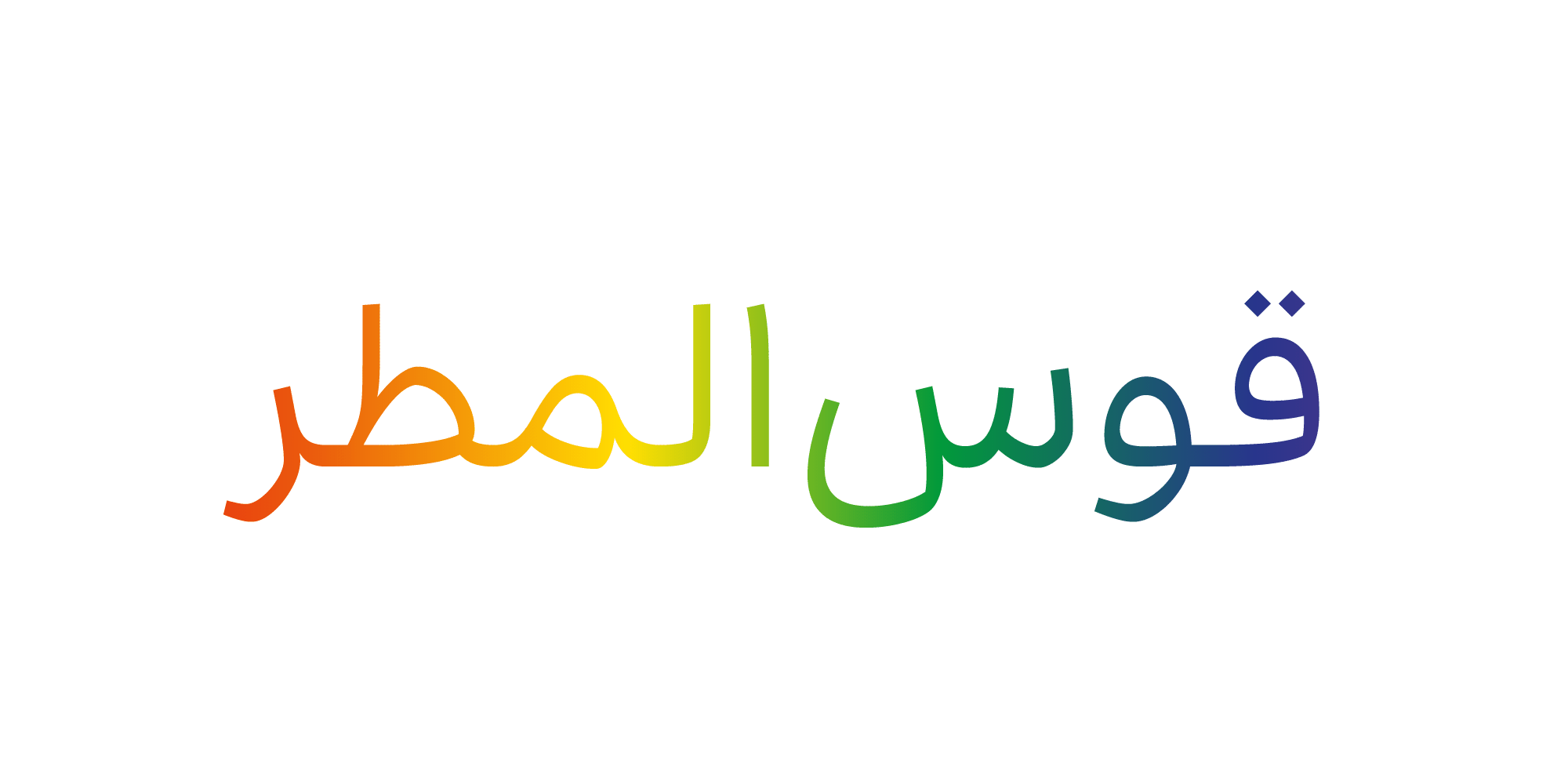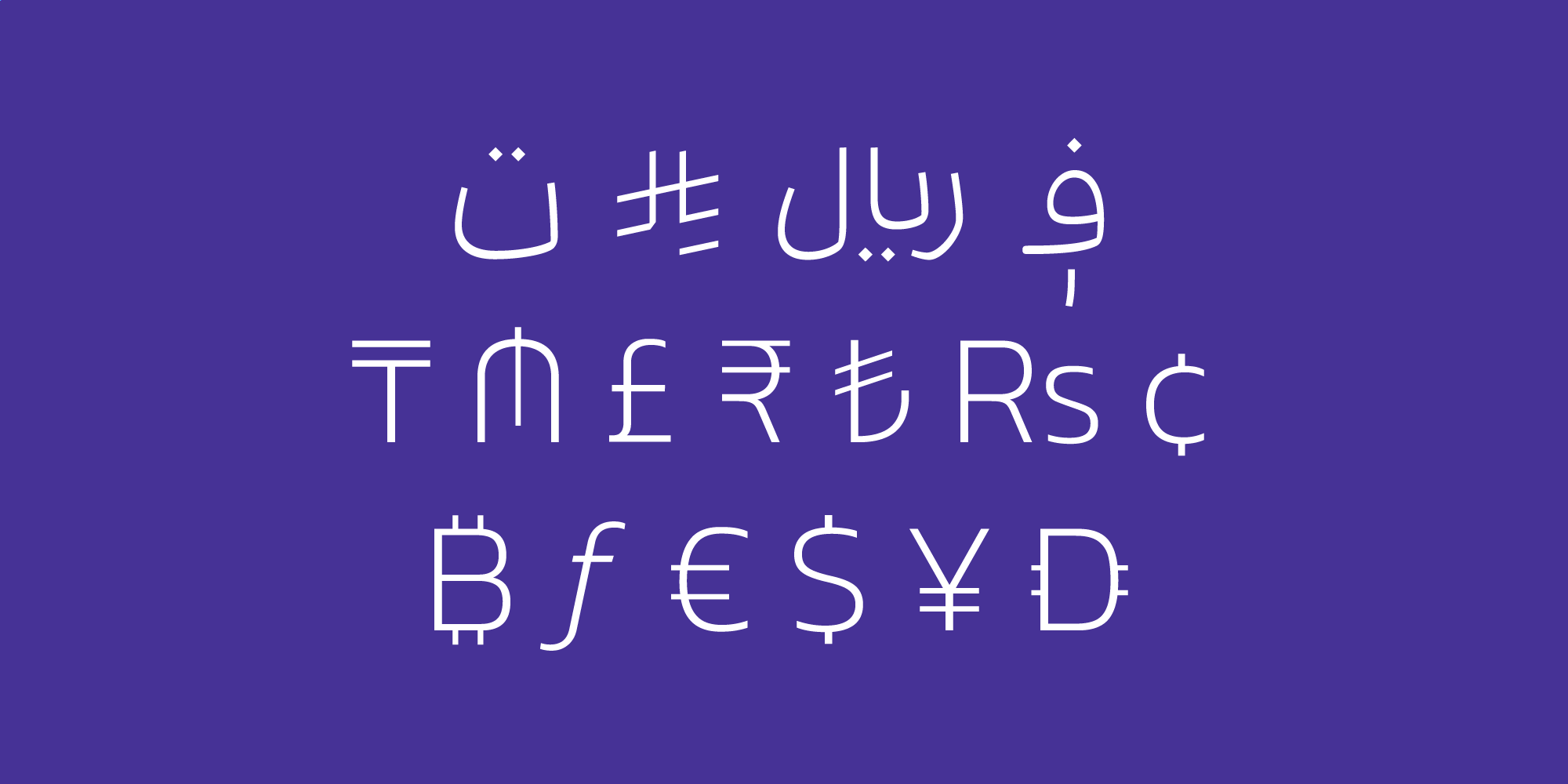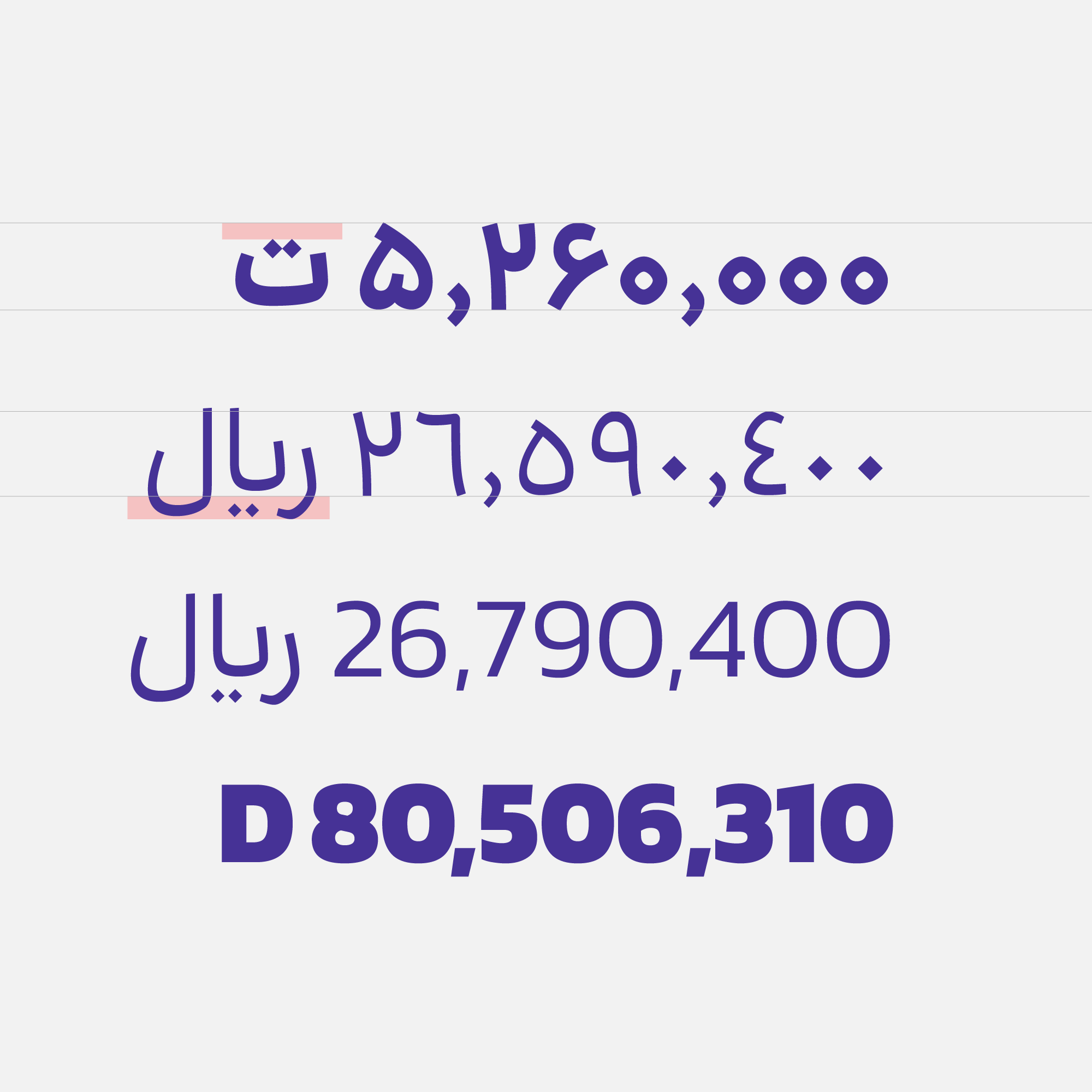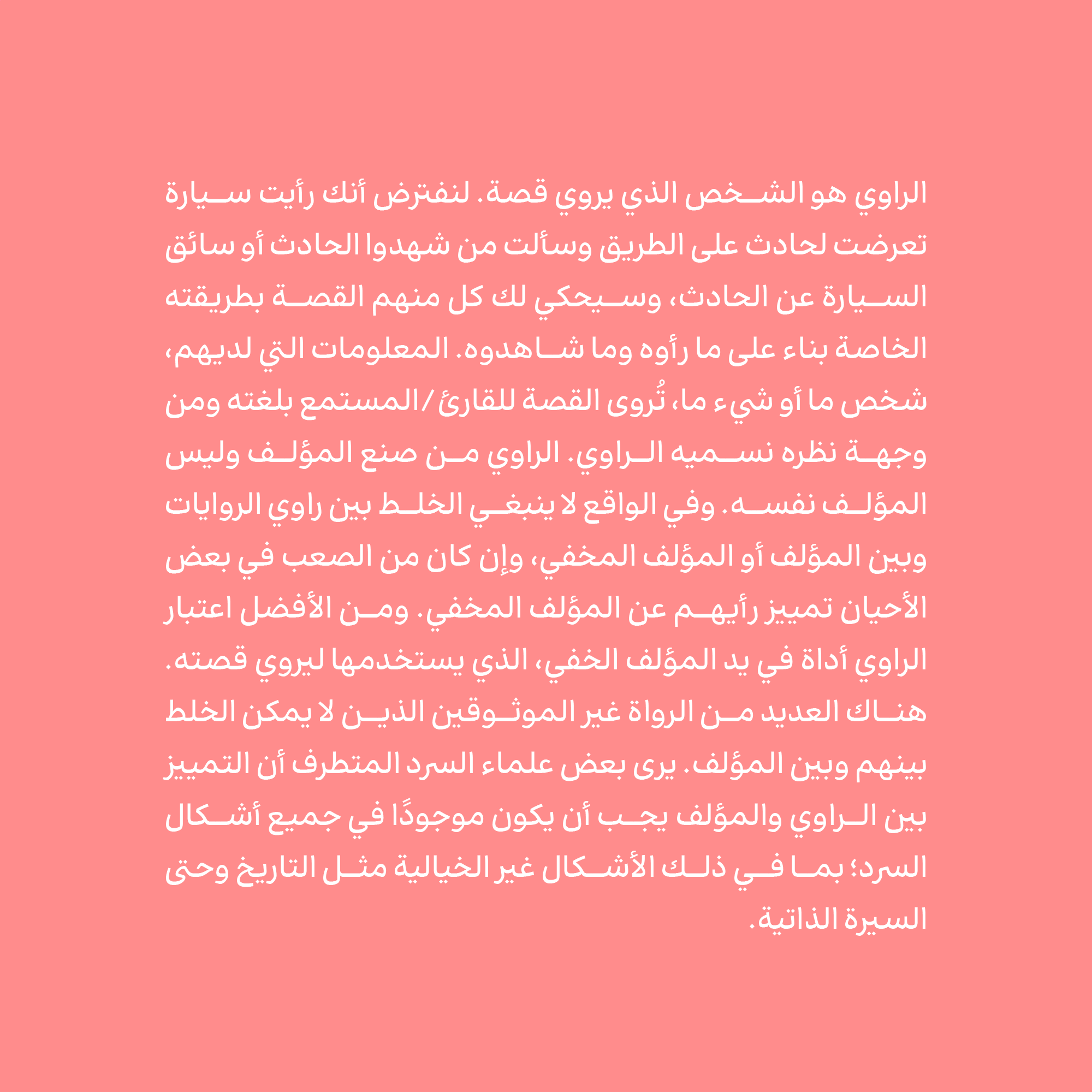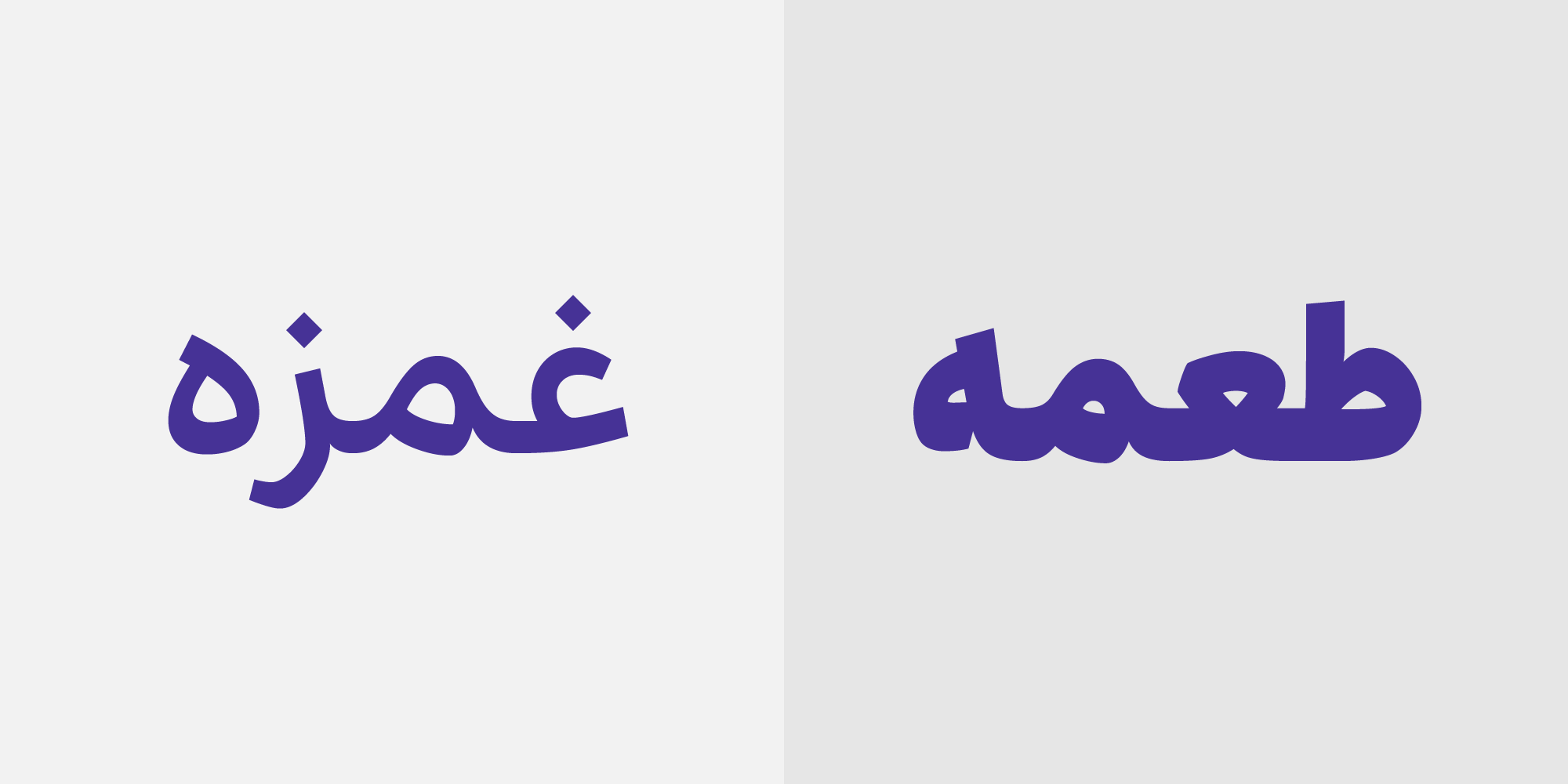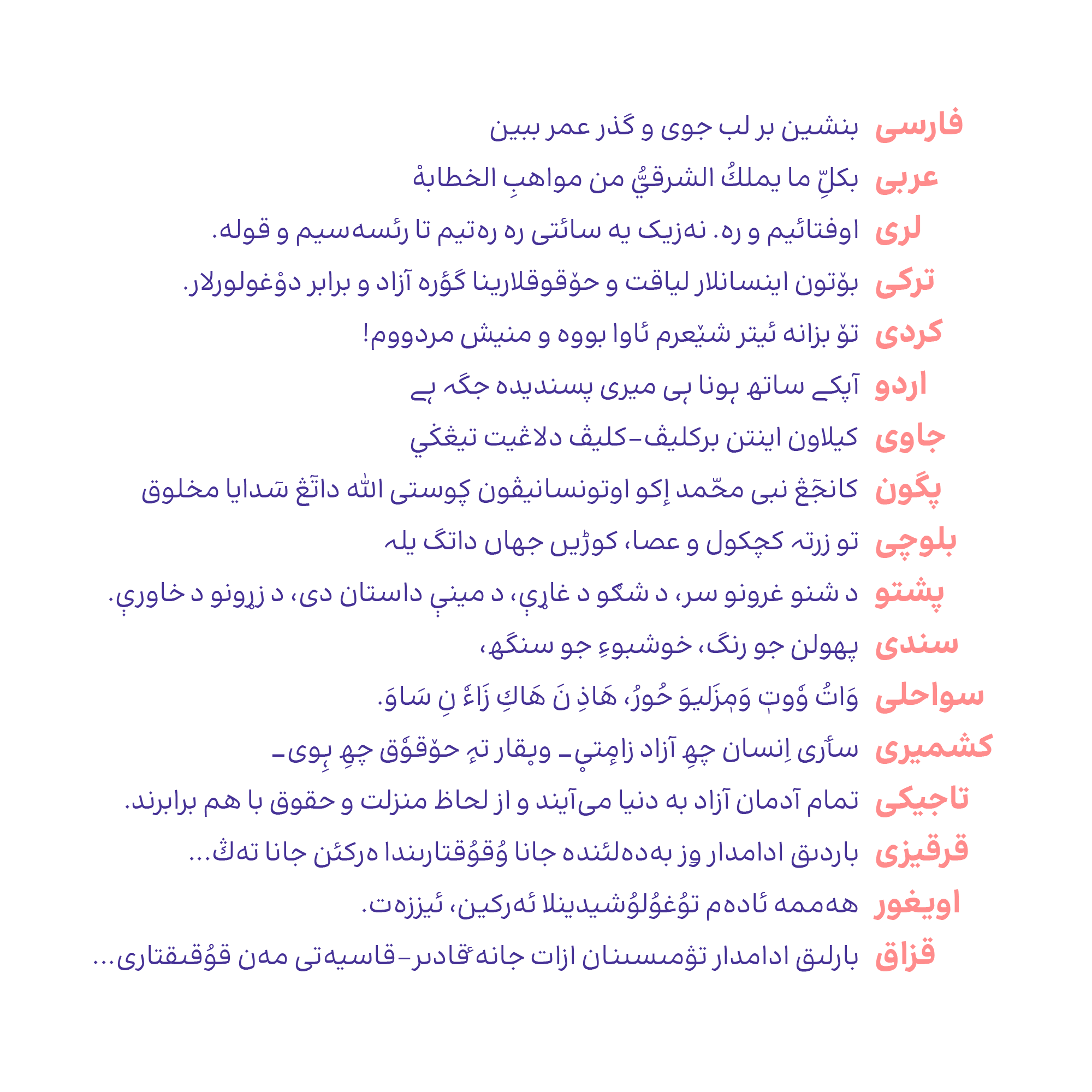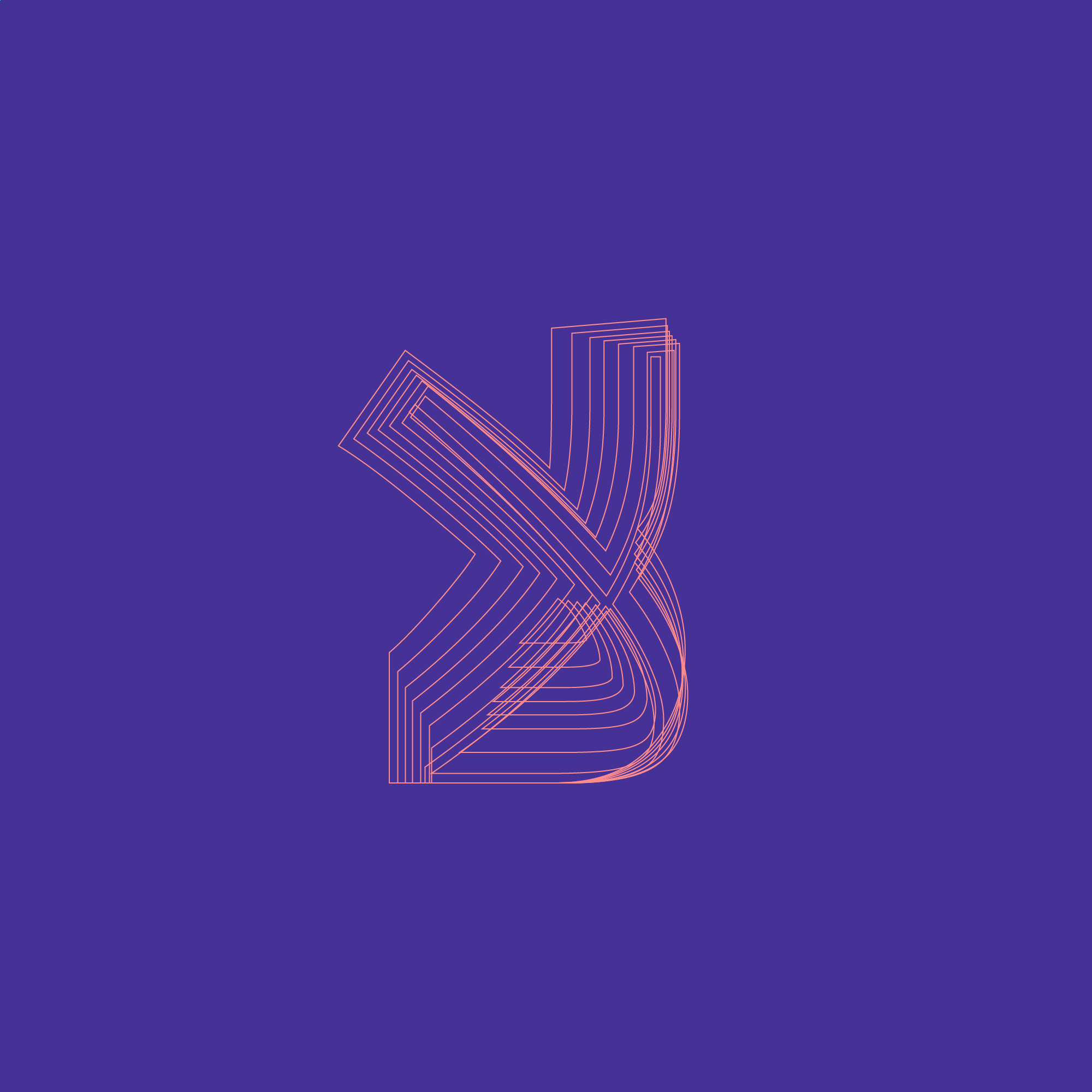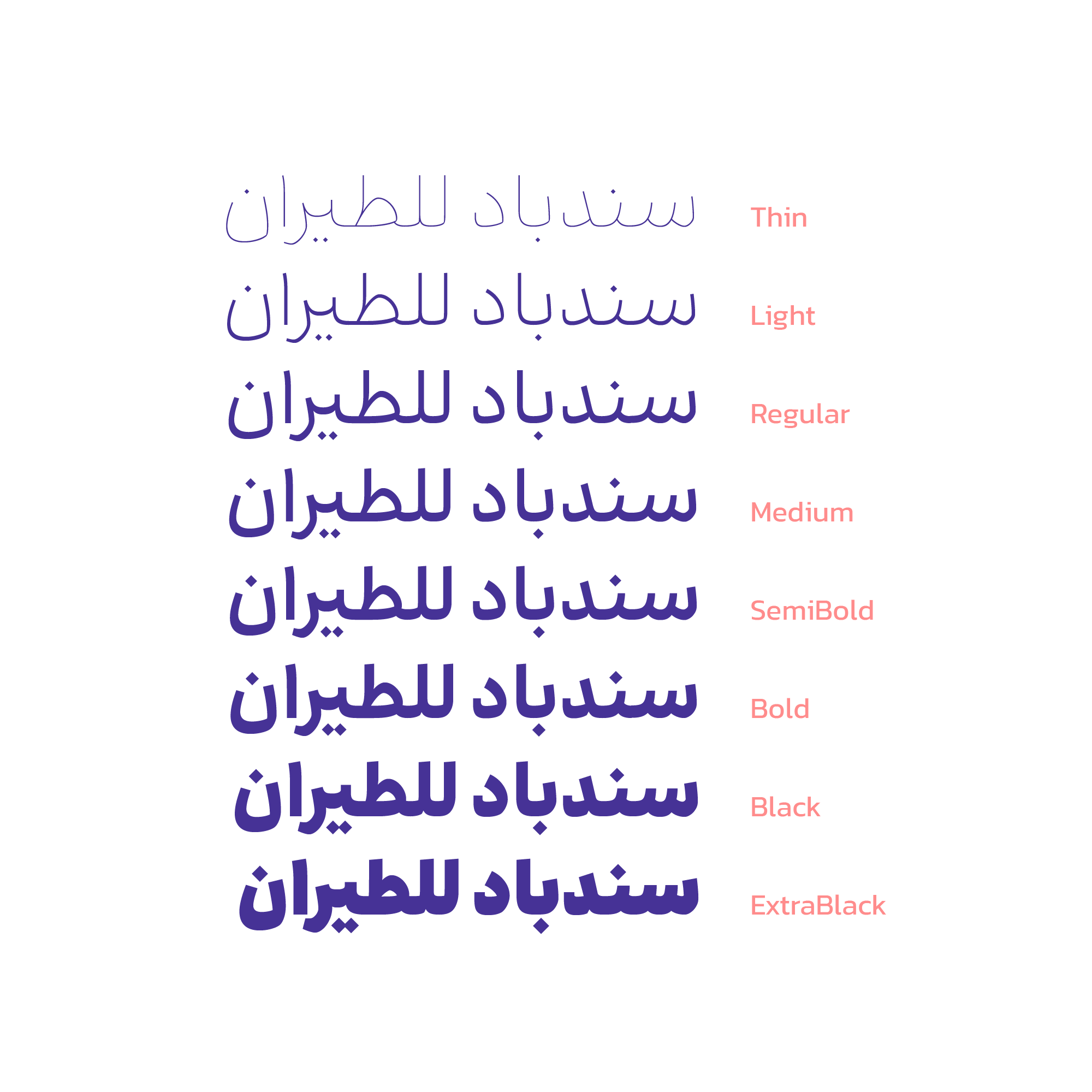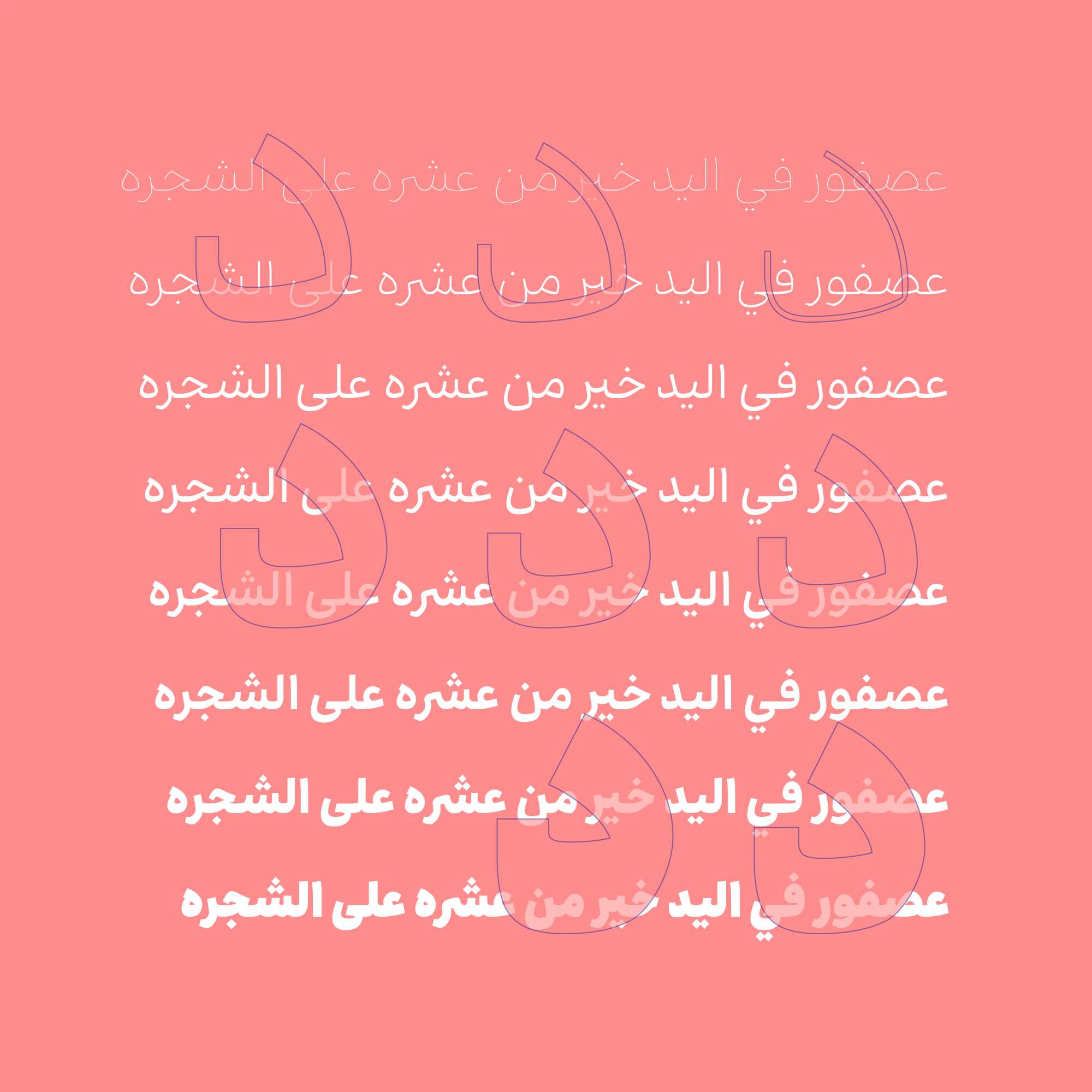
Ravi
Weight Variety in Ravi Font
Ravi comes in 8 weights — Thin, Light, Regular, Medium, SemiBold, Bold, Black, ExtraBlack & Variable Font.
Rial and Toman Symbols
Enable Stylistic Set 2 to access dedicated Rial and Toman symbols. Stylistic Set 3 provides symbols for Saudi Riyal and UAE Dirham.
Multilingual Support
Ravi supports Arabic, Luri, Turkish, Farsi, Kurdish, Urdu, Jawi, Pegon, Baluchi, Pashto, Sindhi, Swahili, Kashmiri, Tajik, Kyrgyz, Uyghur and Kazakh.
Ligatures and Alternates
Ravi includes ligatures and alternative letterforms that enhance the beauty and rhythm of text.
Vertical Alignment for Symbols
Use Stylistic Set 4 to fine-tune the vertical alignment of numerals, punctuation, and currency signs.
Tabular Numbers
Tabular figures are included for perfect numeral alignment in tables and data layouts.
Ravi in Use
Ravi In Use